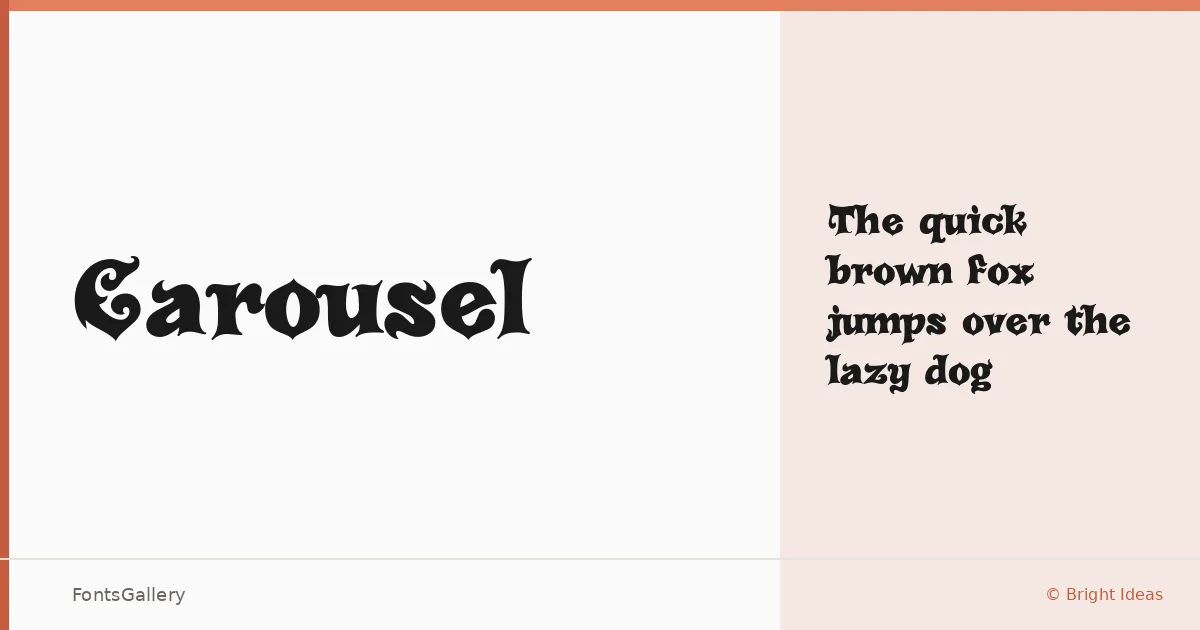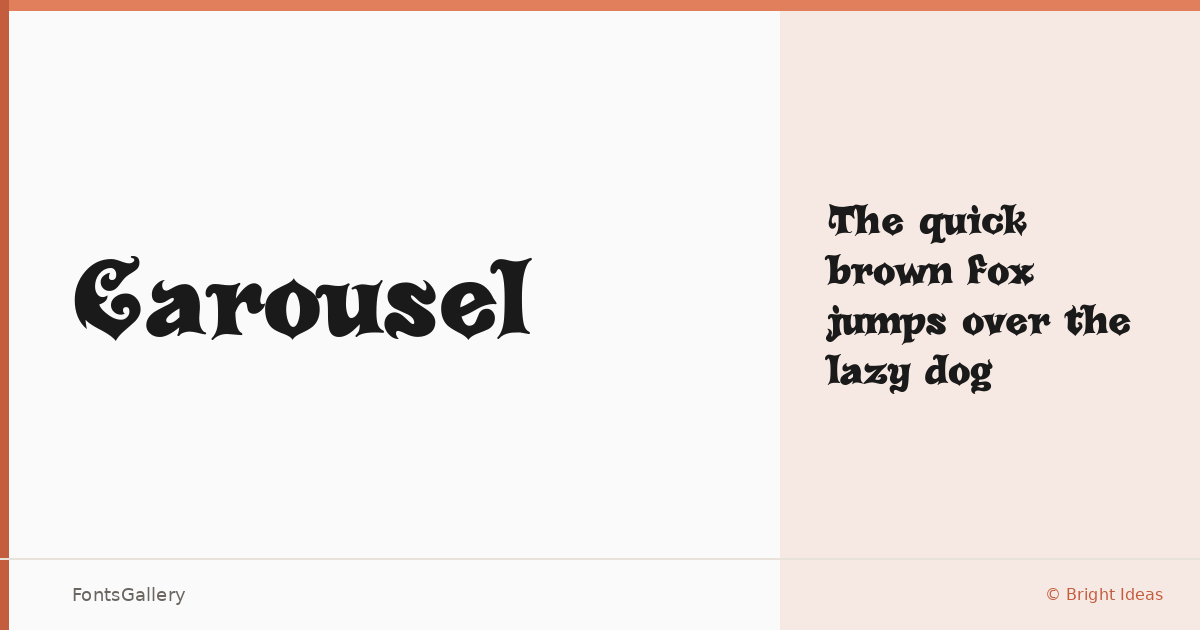
About Carousel Font
There is something deliberate in the weight of these letterforms — the thick strokes, the angular terminals, the density that blackletter carries like ink pressed hard into newsprint. Released by Bright Ideas, this is a single-cut family, available in Regular, delivered as a TTF file.
The blackletter category pulls from a long tradition of bold, classic craft, and this face leans into the grunge and vintage end of that spectrum rather than the ecclesiastical. The forms feel weathered without being illegible — there is grit in the texture but enough structure to hold at display sizes. It covers Latin, so its scope is focused and intentional.
This is a headline and logo face, well suited to poster work, branding with an edge, and T-shirt design where the weight reads from a distance. It pairs naturally with clean grotesques or neutrals — Helvetica and Aileron both create strong contrast against its medieval density, while Aranea, Aresink, and Alexandria offer more character-forward alternatives when a pairing with more texture is right for the job.